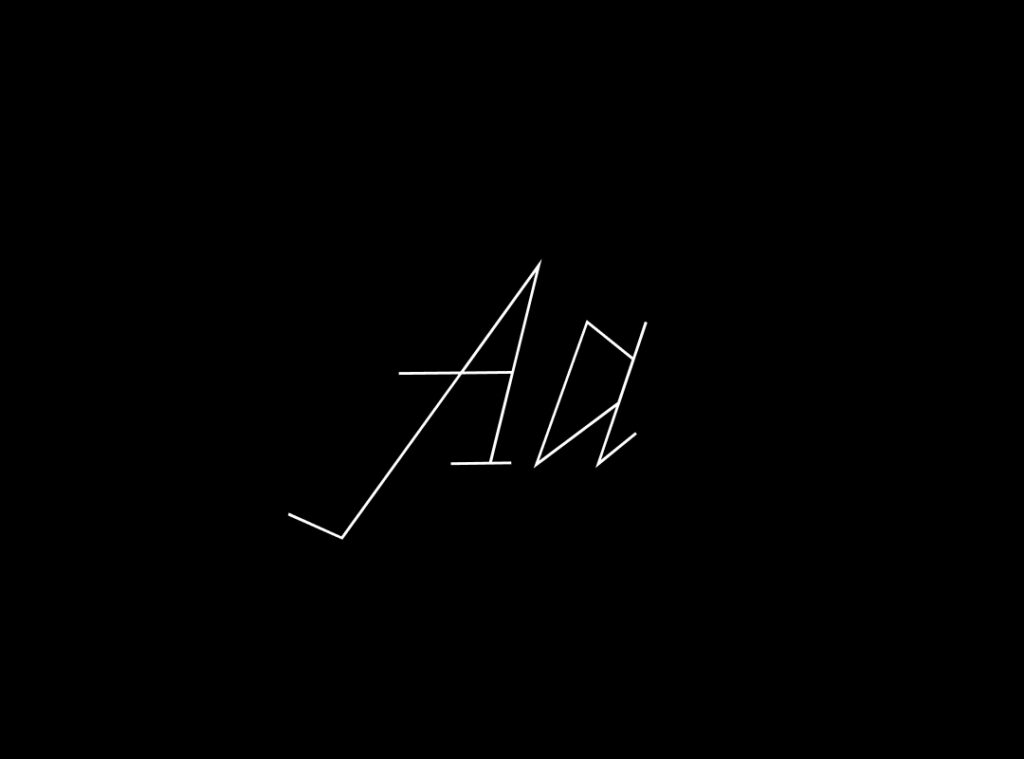
Ampoule is an audacious, experimental typeface featuring letters and symbols formed by an intricate dance of moving dots and bars.
- Designer: Daytona Mess
- Type Foundry: Tunera TypeFoundry